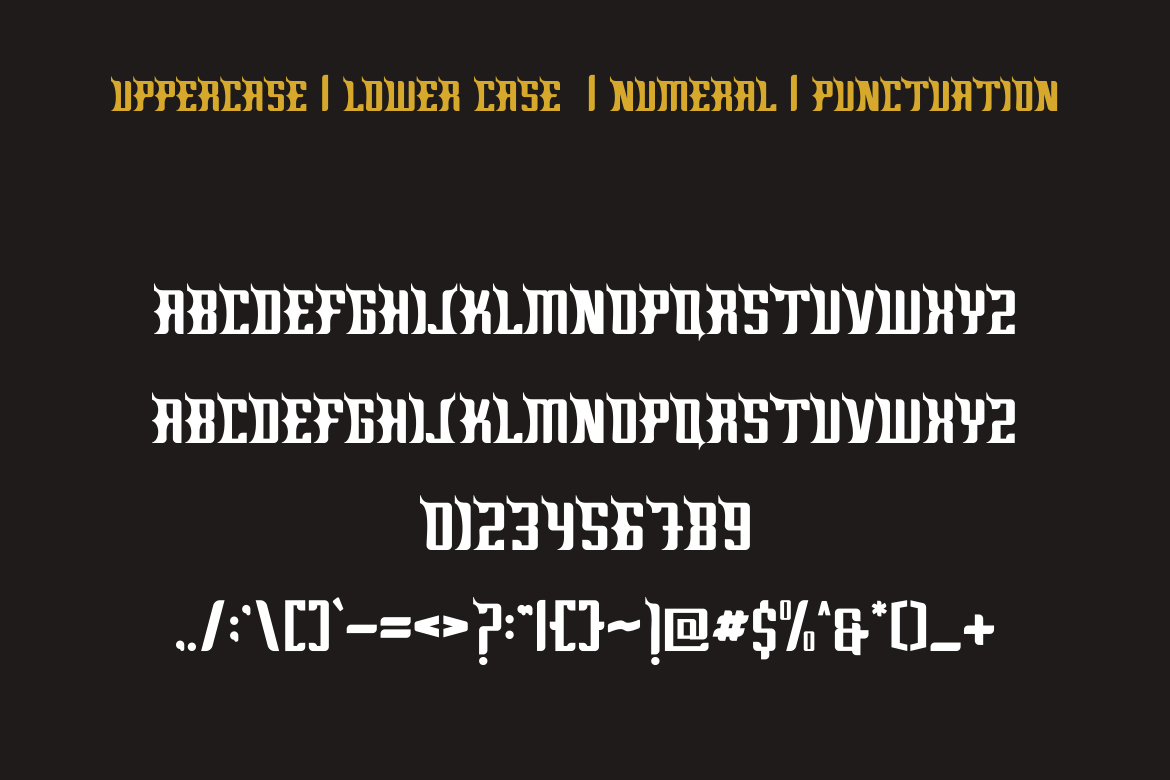
Taro Squad Font
About Taro Squad Font
Taro Squad is an incredibly cool and unique blackletter font. It has a modern yet whimsical style and it will undoubtedly immerse your designs into a magical world.